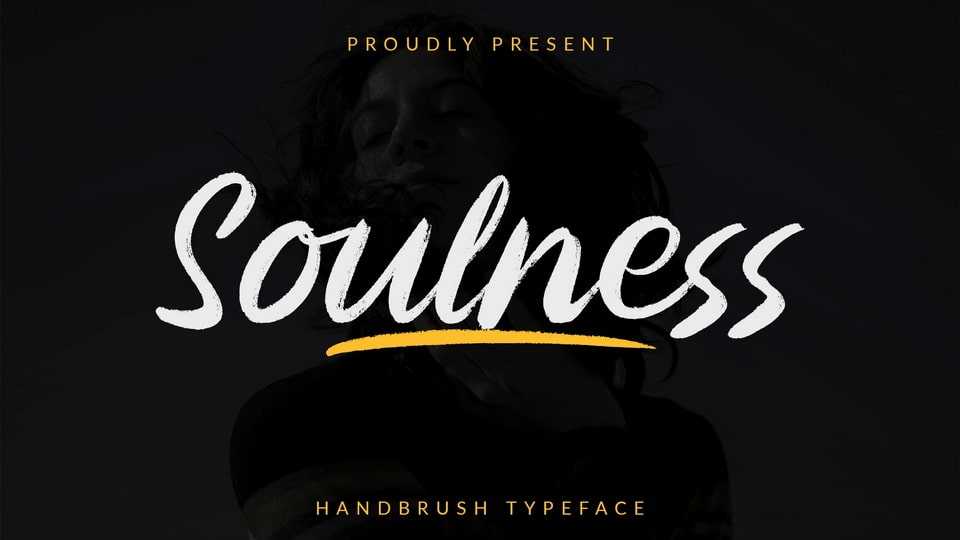
Download Soulness font, a lovely brushed handwritten typeface. Soulness works incredibly well on urban designs or nearly any casual idea that requires a bold yet versatile touch.